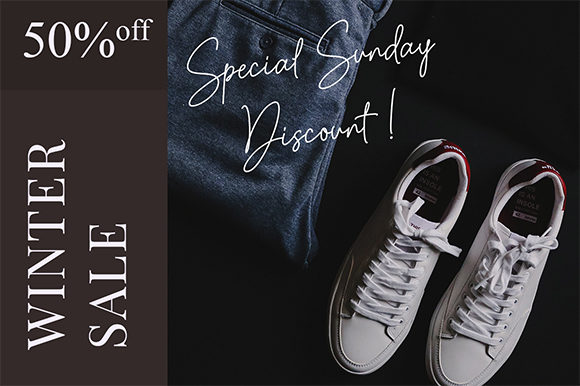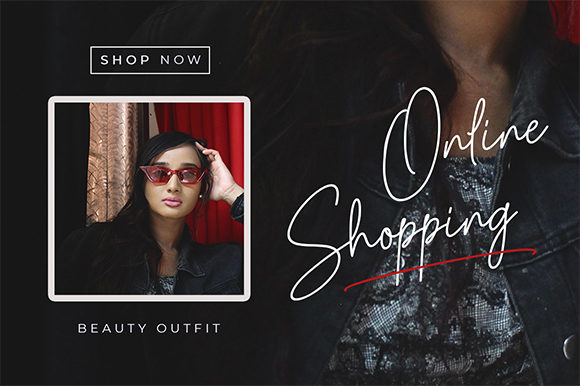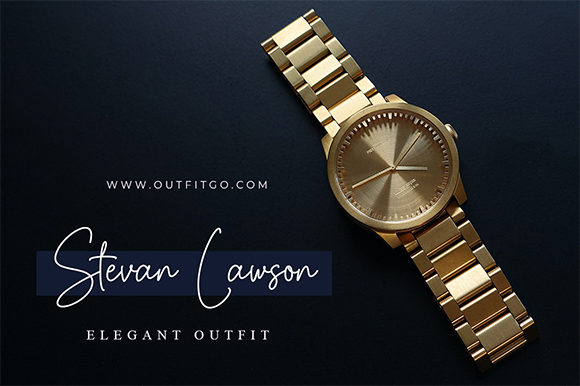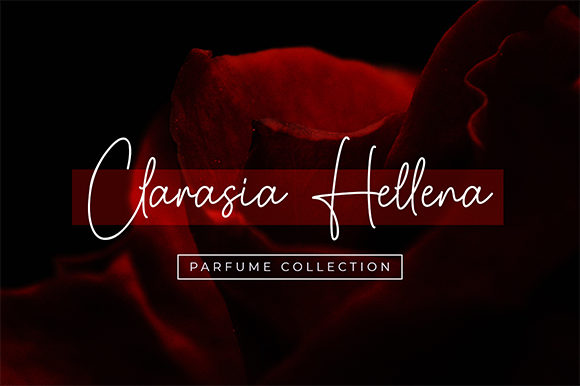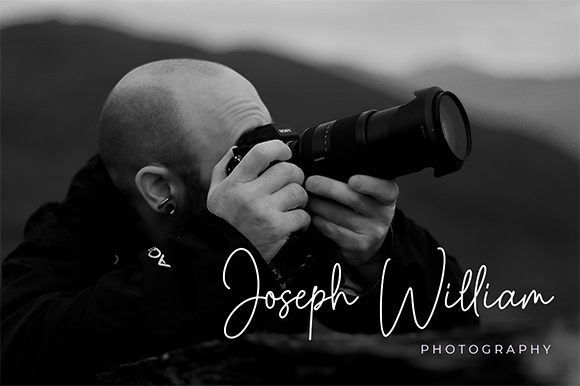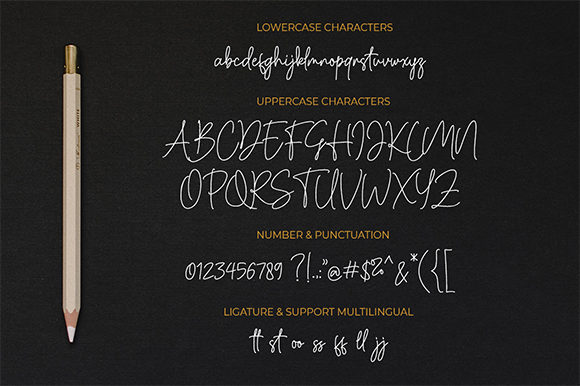
Unleash Your Creativity with the Perfect Font
Remember that moment when you finally found the perfect color palette for your design project? The feeling of excitement and relief is unmatched. But, what if I told you that the perfect font can evoke the same emotions? For designers, finding the right font can make or break a project’s overall aesthetic. This is where the Cassual Signature Font comes in – a delicate, cursive font that’s sure to capture your heart.
Whether you’re creating a beautiful invitation, a romantic wedding card, or a heartfelt letter, the Cassual Signature Font is the perfect choice. Its thin and delicate design adds a touch of elegance and sophistication to any project. As a designer, you’ll appreciate the versatility and value that this font brings to your work. With the Cassual Signature Font, you’ll be able to create stunning designs that leave a lasting impression.
Cassual Signature Font Key Features
- Font Family: A unique, handwritten font designed to mimic casual, handwritten signatures.
- Characteristics: Features a mix of flowing curves and bold strokes, giving it a dynamic and expressive feel.
- Kerning and Ligatures: Includes advanced kerning and ligature pairs to ensure smooth text rendering and a professional finish.
Casual Signature Font Review
Overall, I think the Casual Signature Font is a solid choice for casual or handwritten-style designs. It’s perfect for adding a personal touch to your branding materials, especially for small businesses or creatives.
- The font’s organic feel makes it perfect for adding a touch of personality to your designs.
- The font’s versatility allows it to be used in a variety of contexts, from branding materials to social media graphics.
- The font’s unique characteristics, such as the varying line widths and irregularities, give it a handmade feel that’s hard to replicate with other fonts.
- The font may not be suitable for formal or professional designs, as it may come across as too casual or unpolished.
- The font’s irregularities may make it difficult to read in certain contexts, such as in large blocks of text or in smaller sizes.
Overall, I think the Casual Signature Font is a great choice for designers looking to add a personal touch to their designs. While it may have some limitations, its unique characteristics and versatility make it a solid addition to any font library.
Use the Casual Signature Font to create a personal and friendly tone in your designs. Pair it with bold or italic fonts to add contrast and emphasis. Experiment with different font sizes and colors to create visual interest.
The Casual Signature Font is ideal for creating invitations, social media graphics, and personal branding materials. Use it to add a touch of personality to your designs and make them stand out.